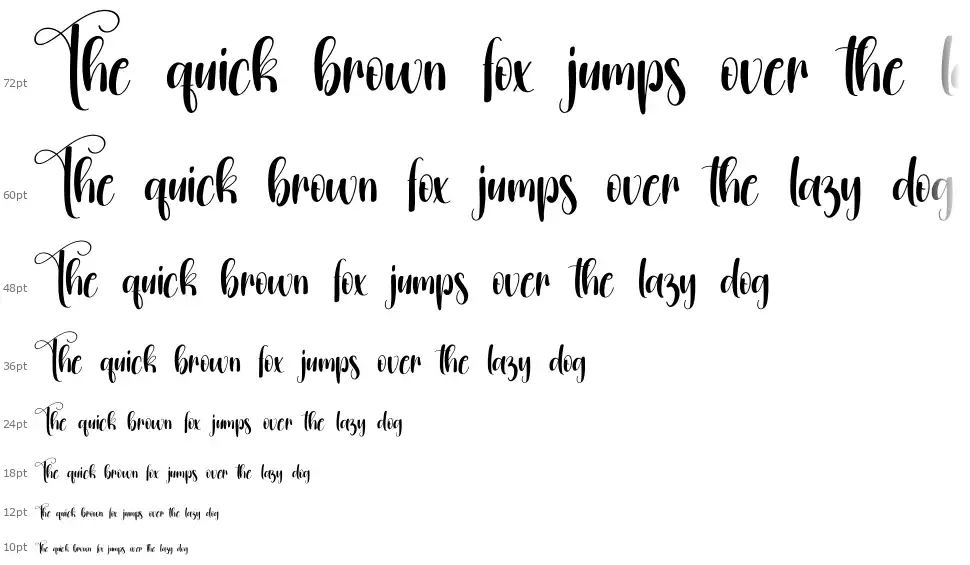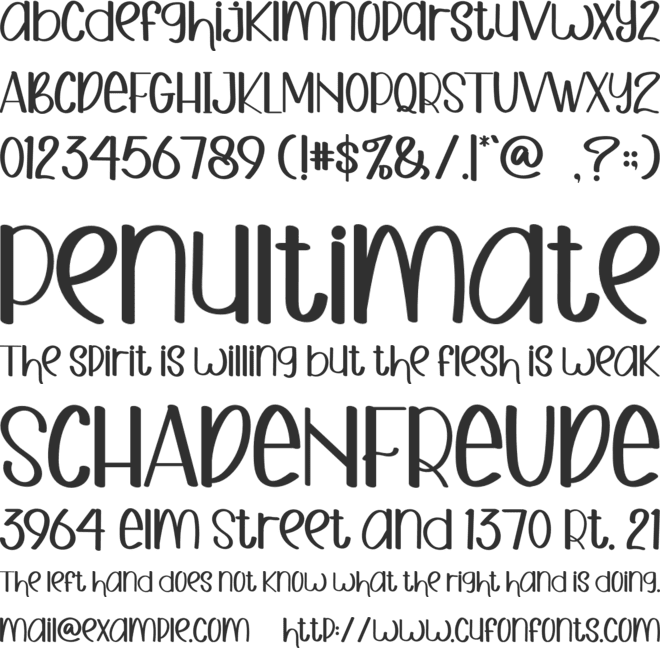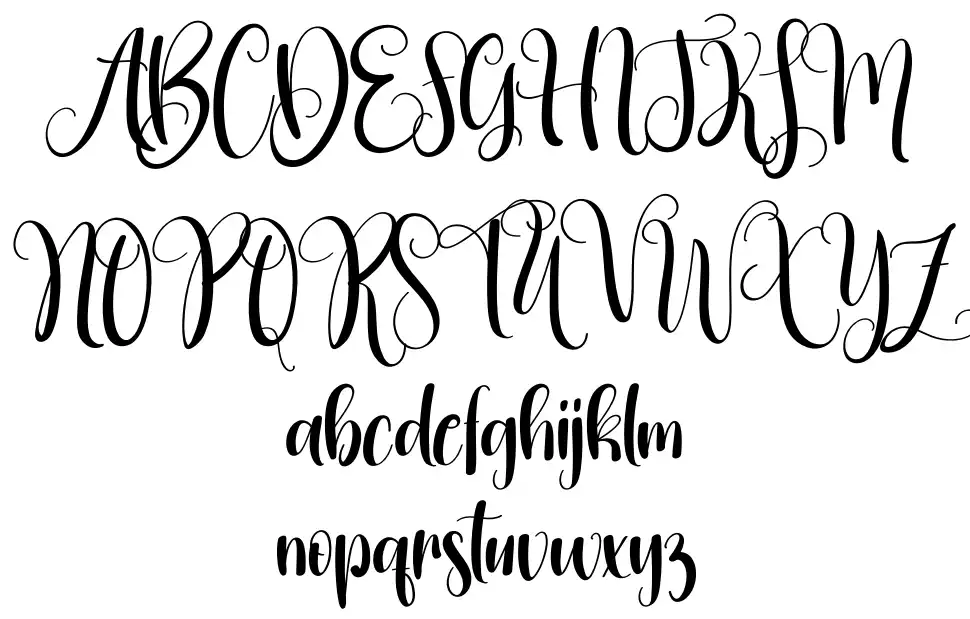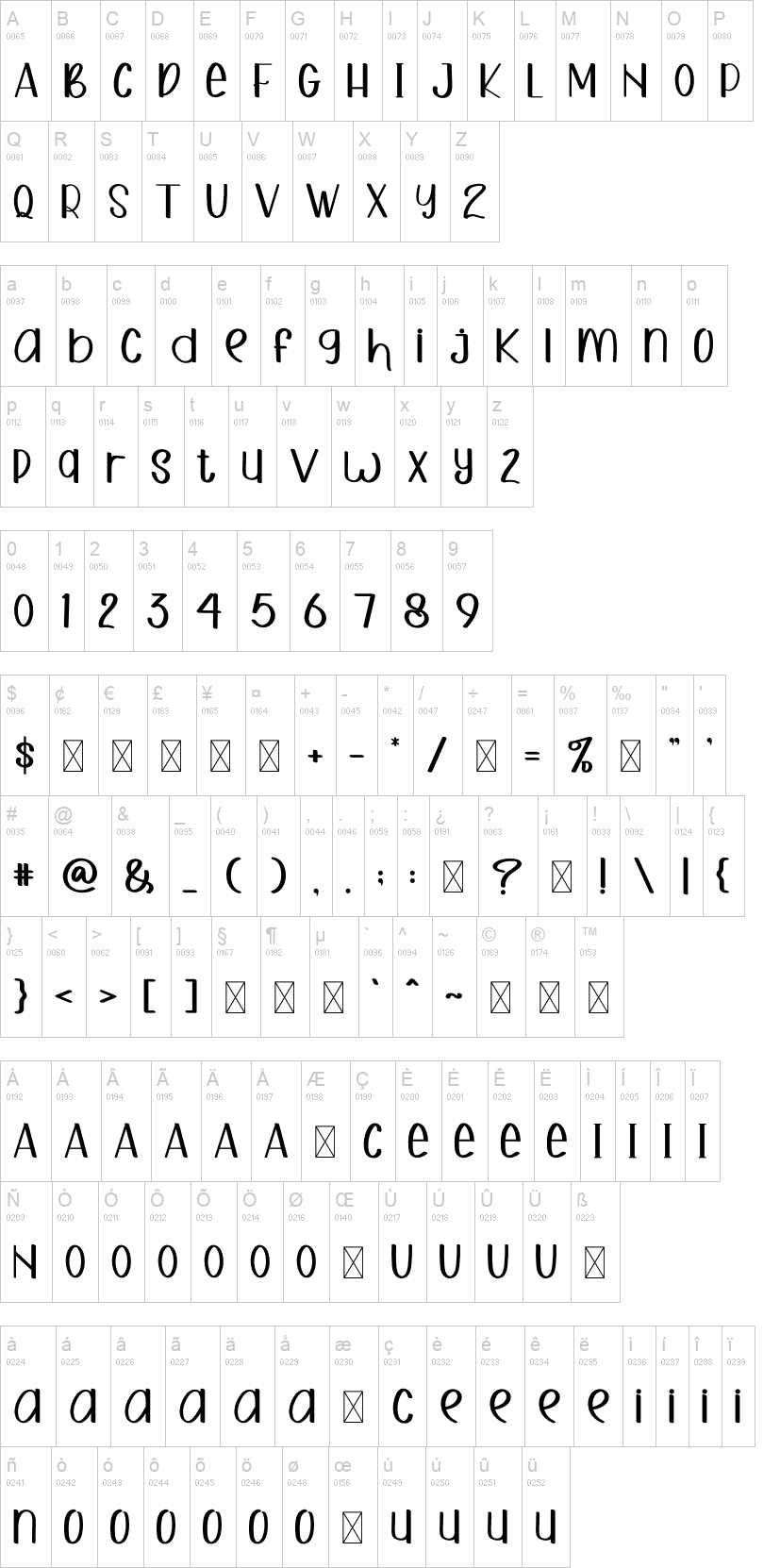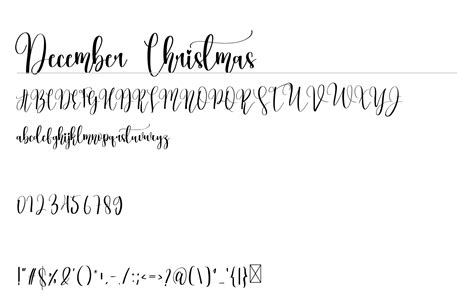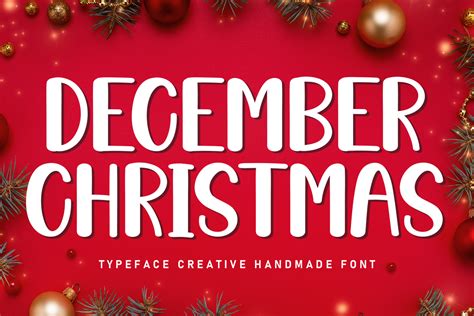
Christmas December Font
Christmas December font by scratchones FontRiver
This font is perfect for wall displays, wedding. Browse by alphabetical listing, by style, by author or by popularity. Every font is free to download! Looking for christmas december fonts? This font is a modern typeface with unique glyphs.
DeceMBeR CHRiStMas Font Download Free for Desktop & Webfont
Browse by alphabetical listing, by style, by author or by popularity. Every font is free to download! Click to find the best 25 free fonts in the december style. This font is perfect for wall displays, wedding. Looking for christmas december fonts?
December Christmas Font scratchones_creative FontSpace
Christmas December font by scratchones FontRiver
This font is a modern typeface with unique glyphs. Every font is free to download! Browse by alphabetical listing, by style, by author or by popularity. Download now and spread the festive. This font is perfect for wall displays, wedding.
December Christmas Font Decorative Retro Vintage
December Christmas Font
Click to find the best 19 free fonts in the christmas december style. This font is a modern typeface with unique glyphs. Every font is free to download! It is forbidden to use this font for commercial purposes or for the purpose of making a profit. Download now and spread the festive.
December Christmas Font Download
Every font is free to download! Browse by alphabetical listing, by style, by author or by popularity. This font is a modern typeface with unique glyphs. Click to find the best 19 free fonts in the christmas december style.
Christmas December Font Download
Click to find the best 25 free fonts in the december style. Click to find the best 19 free fonts in the christmas december style. Browse by alphabetical listing, by style, by author or by popularity. Download now and spread the festive. This font is a modern typeface with unique glyphs.
Christmas December Font FREE Download & Similar Fonts FontGet
Click to find the best 25 free fonts in the december style. Looking for christmas december fonts? Click to find the best 19 free fonts in the christmas december style. Browse by alphabetical listing, by style, by author or by popularity. It is forbidden to use this font for commercial purposes or for the purpose of making a profit.
Every Font Is Free To Download!
It is forbidden to use this font for commercial purposes or for the purpose of making a profit. Click to find the best 19 free fonts in the christmas december style. This font is a modern typeface with unique glyphs. Click to find the best 25 free fonts in the december style.
This Font Is Perfect For Wall Displays, Wedding.